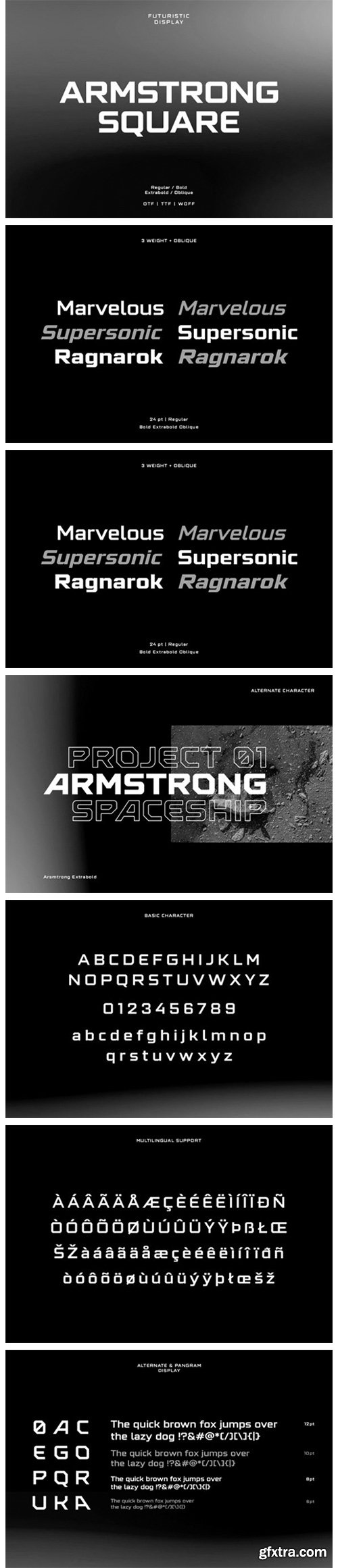
Armstrong Square Font
Armstrong Square is a bold, all caps display font featuring the perfect amount of trendiness. Whether you’re using it for crafting, digital designing, presentations or greeting cards making, it’s perfect!